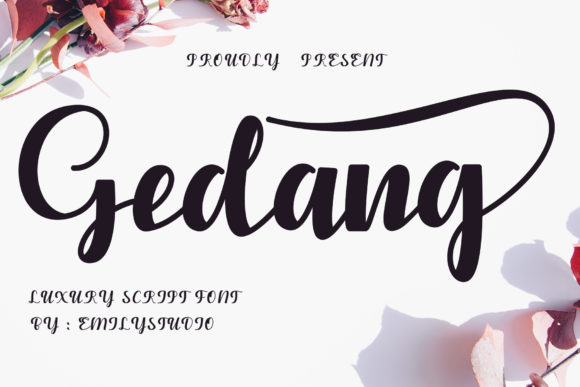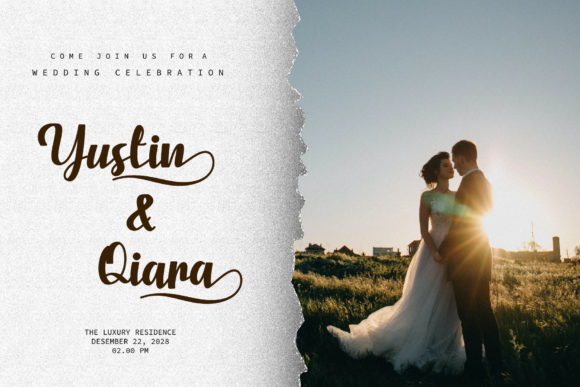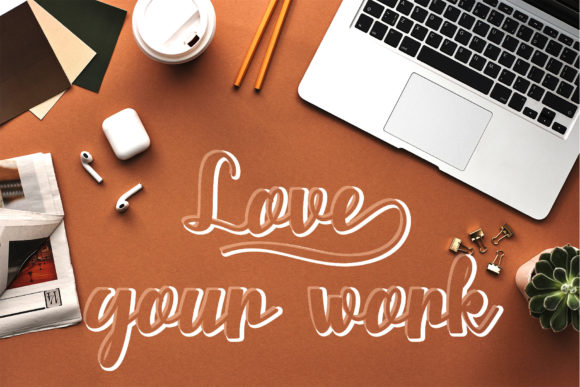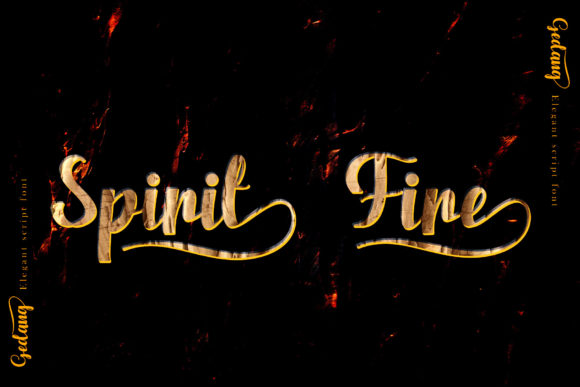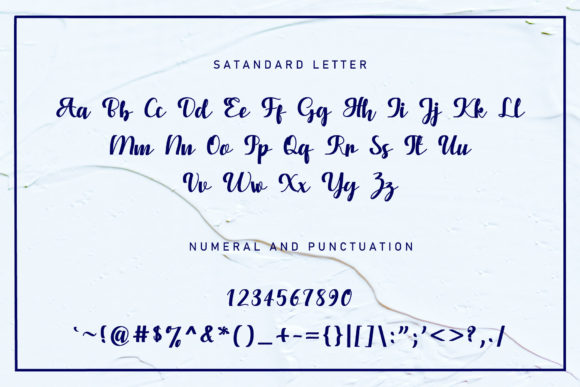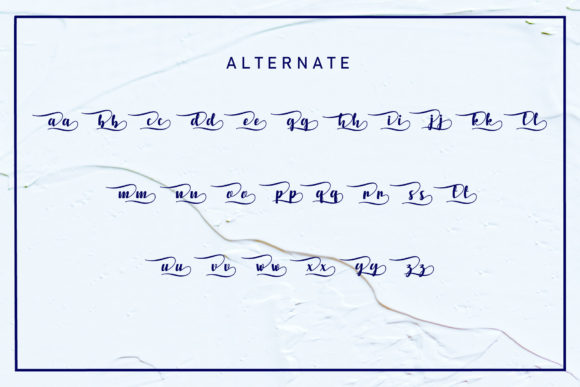
Gedang Font
About Gedang Font
Gedang is a handwritten font made especially for lovers of bold and elegant script fonts. This Gedang font is perfect for displaying advertisements, beauty products, food products, invitations, and others. Fall in love with its incredibly versatile style and use it to create spectacular designs!